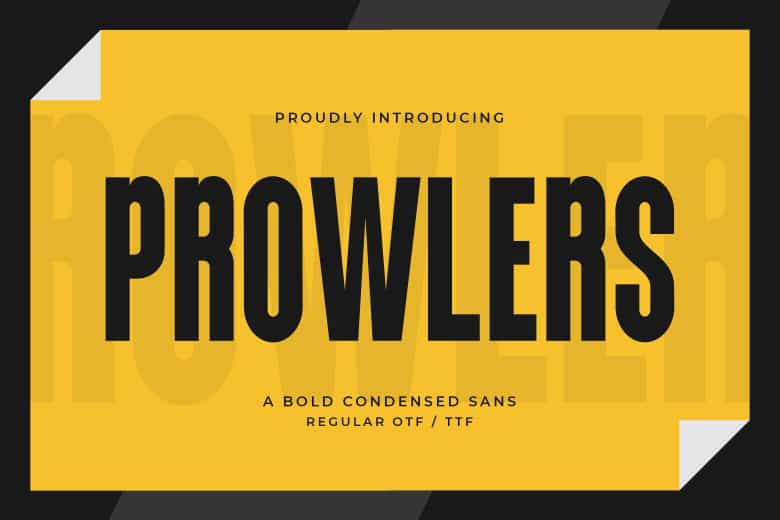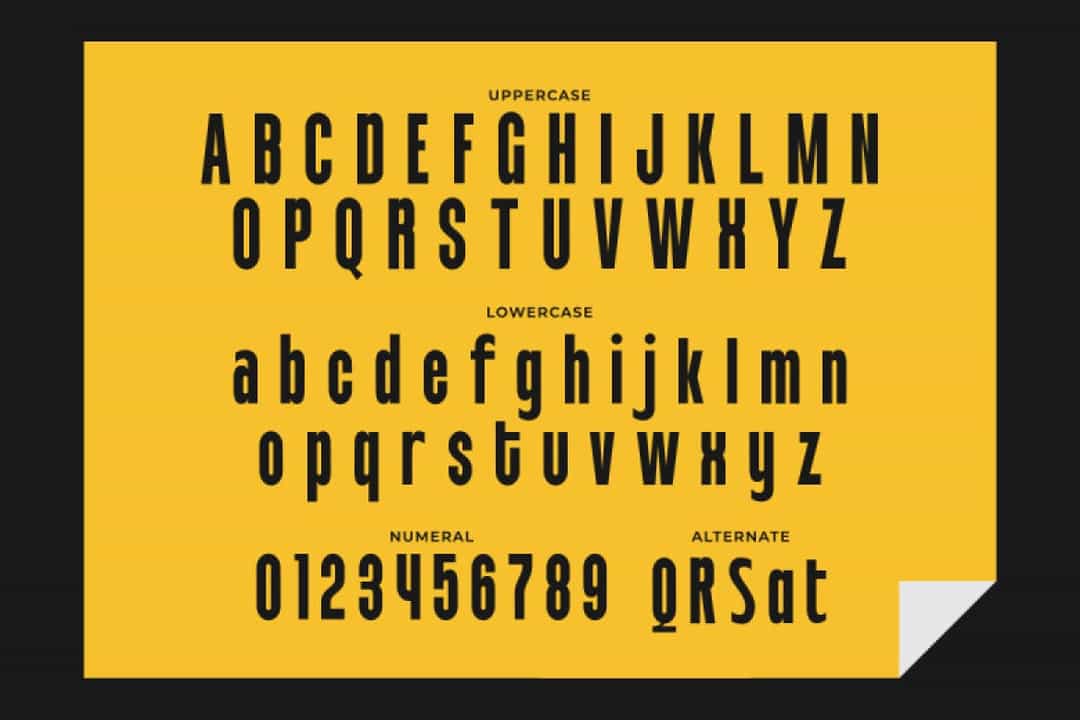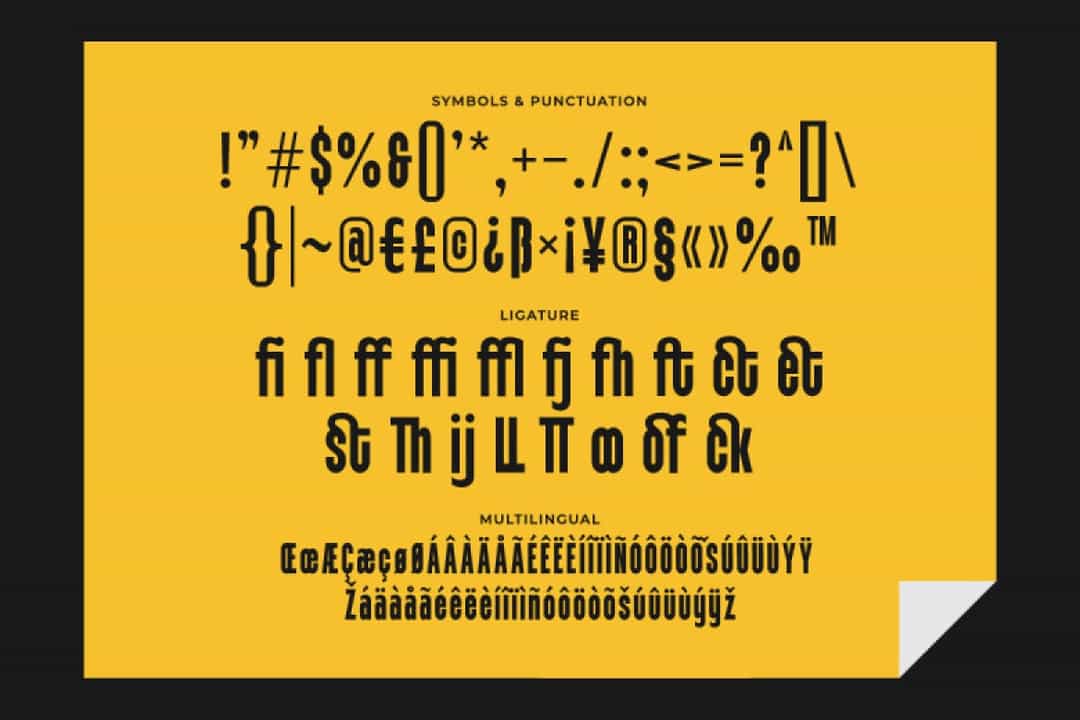
“Prowlers” is a striking, modern sans serif font designed to bring power and impact to every design project! Boasting bold letterforms with striking character, “Prowlers” leaves an indelible mark in every layout it graces.